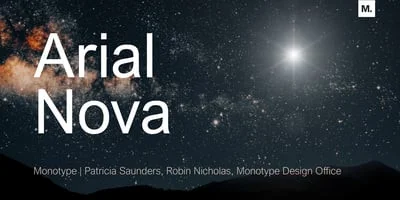
Arial Nova Font
Arial Nova Font is perfect for corporate presentations, business documentation, professional reports, digital interfaces, educational materials, government communications, technical manuals, web applications, mobile platforms, and contemporary office environments that require enhanced readability and modern professional appearance across all devices.
What makes Arial Nova Font truly exciting is its intelligent evolution of the world's most widely-used typeface with cutting-edge improvements for modern digital communication needs. This exceptional typeface builds upon Arial's proven foundation while incorporating advanced optical refinements and enhanced character clarity that deliver superior performance on high-resolution displays and contemporary media platforms. The font's familiar reliability combined with modern technical excellence makes it perfect for organizations seeking to maintain brand consistency while embracing technological advancement.
The Arial Nova Font family includes comprehensive weights and styles: Light, Regular, Medium, Bold, and Condensed variations, each available in Roman and Italic versions. Each family member maintains the distinctive Arial character while offering improved spacing and enhanced legibility features. The extensive character set supports multiple languages and advanced OpenType capabilities, making it suitable for global business applications.
When you choose Arial Nova Font, you're selecting a typography upgrade that enhances communication effectiveness without sacrificing familiarity. This versatile typeface excels across all digital and print platforms, delivering exceptional clarity and professional appearance while maintaining universal compatibility. Whether you're creating business presentations, user interfaces, educational content, or corporate communications, this font provides the modern reliability and enhanced performance that resonates with today's professionals who demand both innovation and dependable functionality.